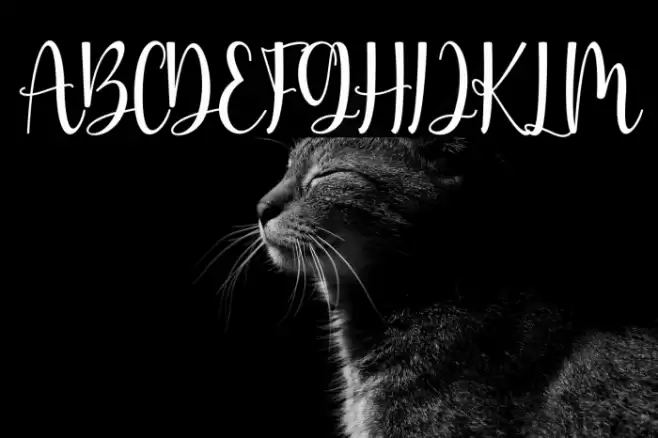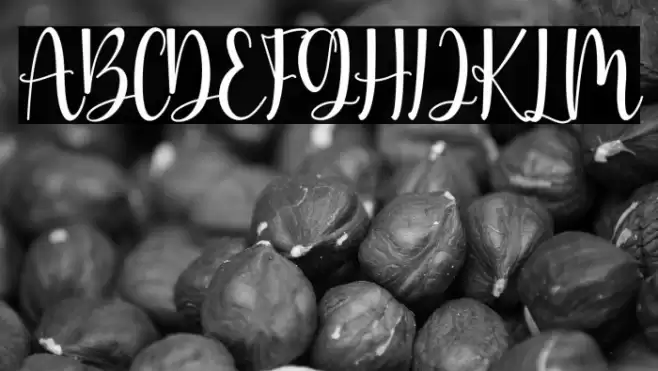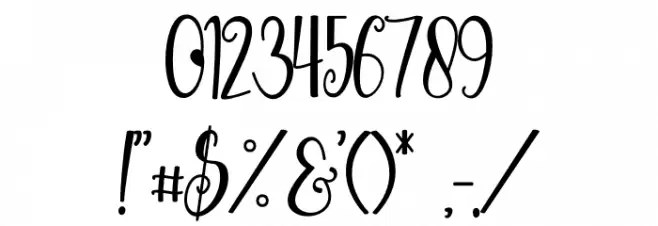
Mayapada Font
Mayapada Description
This font features an elegant and flowing script style, characterized by its smooth, cursive strokes and artistic flair. The uppercase letters are tall and graceful, with some characters incorporating unique loops and swirls that add a touch of sophistication. The lowercase letters maintain a consistent flow, complementing the uppercase with their rounded and connected forms. Numbers and special characters are designed to match the overall aesthetic, ensuring a cohesive look. This font is perfect for projects that require a touch of elegance and creativity.
An elegant and flowing script font with artistic loops and swirls from Uncategorized fonts.
- Font: Mayapada
- Proposed Projects: Ideal for wedding invitations, greeting cards, branding, and elegant logos.
- Overall Style: Elegant, Artistic
- Use Case: Logos, Invitations, Decorative text